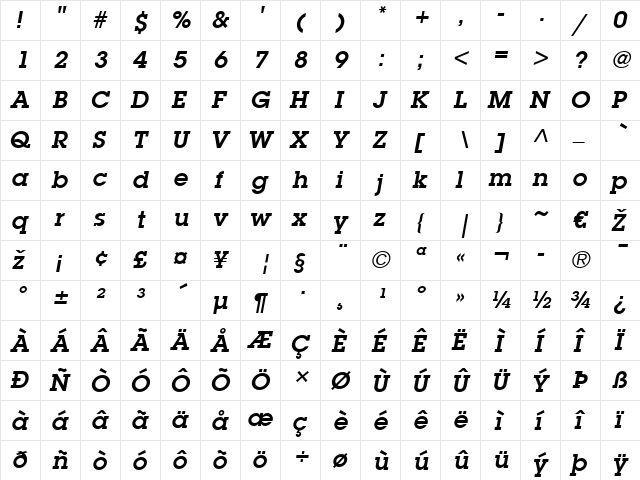
LubalinGraph LT Bold Italic Font Preview
Design Context for LubalinGraph LT Typeface
LubalinGraph LT takes a measured approach to typography — its balanced proportions and neutral character make it a reliable workhorse for both digital and print work. Its italic angle brings a sense of urgency and motion to the letterforms. The heavy weight commands attention and anchors typographic hierarchies.
Pro Tip: Try LubalinGraph LT for annotation and caption copy alongside an upright companion — the contrast in angle creates a dynamic but ordered typographic system.